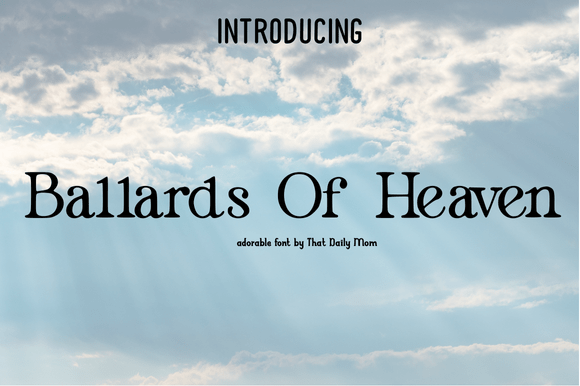
Discover Your Creative Haven with the Ballards of Heaven Font
Have you ever found yourself in a moment of pure creative bliss, where the world around you fades away and all that’s left is the flow of ideas? Perhaps it’s the sound of a gentle breeze or the soft hum of a favorite instrument, but whatever it is, it’s a feeling that’s hard to replicate. Yet, with the right tools, we can try to capture that essence and bring it to life. For designers, the Ballards of Heaven Font is a game-changer, offering a serene and elegant typeface that’s sure to evoke a sense of calm and appreciation.
This beautiful font is not just a pretty face; it’s a versatile tool that’s easily accessible on popular platforms like Canva, making it a valuable addition to any designer’s toolkit. With its smooth lines and uncluttered design, the Ballards of Heaven Font is perfect for creating a sense of harmony and balance in your digital aesthetic.
Ballards of Heaven Font Key Features
- Font Family: Ballards of Heaven is a unique, hand-drawn font designed to evoke a sense of elegance and sophistication.
- Character Count: The font contains over 200 characters, including uppercase and lowercase letters, numbers, and punctuation marks.
- Unique Characteristics: Ballards of Heaven features intricate, hand-drawn details and subtle flourishes that add a touch of sophistication to any design.
Review: Ballards of Heaven Font
When I first laid eyes on Ballards of Heaven Font, I was immediately drawn to its ✨ elegant and whimsical style ✨. The subtle curves and flourishes evoke a sense of ancient mysticism, perfect for projects that require a touch of sophistication and fantasy.
- The font’s ✨ unique letterforms ✨ add a level of depth and interest, making it an excellent choice for titles, headings, and body text.
- The ✨ high level of detail ✨ in the font’s design ensures that it will hold up well even at smaller font sizes.
- The ✨ wide range of weights ✨ available allows for a high degree of flexibility in terms of layout and design.
However, I do have a few concerns with Ballards of Heaven Font. ⚠️ The font’s readability can be affected by the complex letterforms, particularly in body text. ⚠️ Additionally, the font’s aesthetic may be overwhelming for projects that require a more minimalist approach.
Overall, I would recommend Ballards of Heaven Font for projects that require a touch of elegance and fantasy. However, it’s essential to weigh the benefits against the potential limitations and consider the project’s specific needs before making a decision.
Use the Ballards of Heaven Font to add a touch of elegance to your Canva designs, such as invitations, social media graphics, and presentations.
Use the Ballards of Heaven Font to create beautiful typography in your Adobe designs, such as logos, posters, and brochures.
Use the Ballards of Heaven Font to add a touch of sophistication to your PowerPoint or Word documents, such as reports, presentations, and resumes.
Some tips for getting the most out of the Ballards of Heaven Font include:
- Use it sparingly to create visual interest.
- Pair it with complementary fonts for a harmonious look.